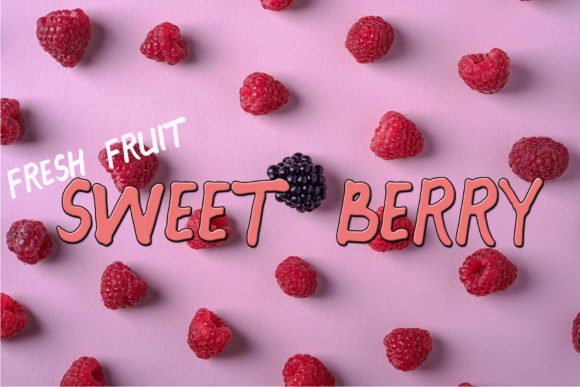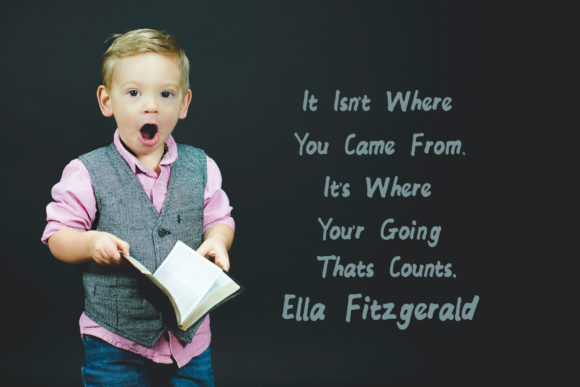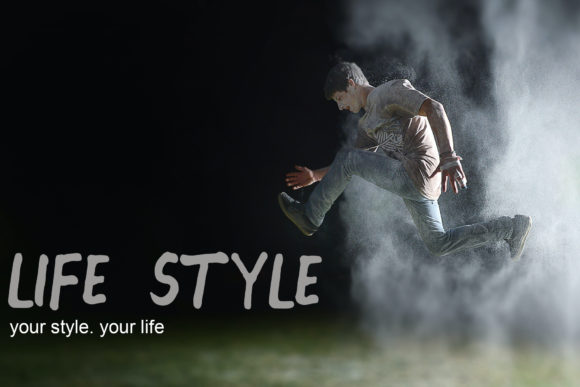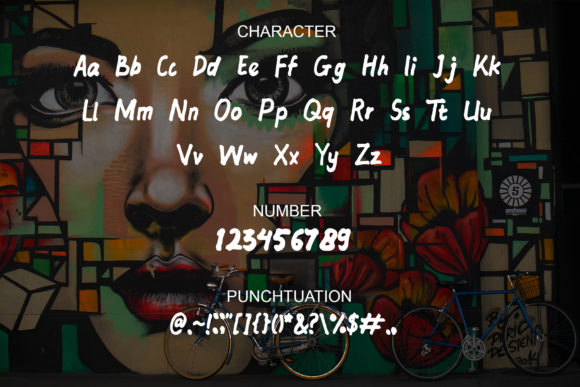
Introduction to Smith Eren Font
As designers, we’ve all been there – staring at a blank canvas, eager to bring our creative project to life. But sometimes, it takes just the right touch to make our designs truly shine. That’s where the Smith Eren Font comes in – a delightful display font that adds a playful, joyful twist to any design.
Whether you’re working on a marketing campaign, a social media graphic, or a wedding invitation, the Smith Eren Font is the perfect addition to elevate your design to the next level. With its high-quality, quirky charm, this font is sure to make your creative ideas stand out and leave a lasting impression on your audience.
Key Features of Smith Eren Font
- Unique, elegant font style with a transparent background for easy customization
- Perfect for use in graphic design, digital art, and other creative applications
Honest Review: Smith Eren Font
I recently stumbled upon the Smith Eren Font, and I must say it’s been a great addition to my design toolkit. As a designer, I’m always on the lookout for high-quality fonts that can elevate my creative projects.
One of the things that stood out to me about the Smith Eren Font is its high quality and versatility. It’s perfect for a variety of design projects, from logos to typography-based art.
Here are some of the features that work well for me:
- ✨ High-quality design: The font is well-designed and looks great on both light and dark backgrounds.
- ✨ Transparent background: This makes it easy to use the font on any background without worrying about it getting lost.
- ⚠️ Limited character set: The font only includes a limited set of characters, which may not be suitable for complex design projects.
- ⚠️ Not suitable for small text: The font can be difficult to read when used for small text, so it’s best to use it for larger typography.
Overall, I’m really impressed with the Smith Eren Font. While it may have some limitations, its high quality and versatility make it a great addition to any designer’s toolkit. I’d definitely recommend it for anyone looking for a free, high-quality font for their creative projects.
Tips for Getting the Most Out of Smith Eren Font
For the best results, use the Smith Eren Font with a transparent background and a high-quality image. This will allow the font to stand out and add a professional touch to your creative project.
Common Use Cases for Smith Eren Font
The Smith Eren Font is a versatile design resource that can be used in a variety of projects, including logos, business cards, and social media graphics. Its unique style and high-quality design make it a popular choice for creative professionals.
Alternatives to Smith Eren Font
The Alex Brush Font is a beautiful, high-quality script font ideal for creative projects that require a touch of elegance. It features a transparent background, making it perfect for overlaying on images or videos. This font is suitable for wedding invitations, greeting cards, and other special occasions. When compared to Smith Eren Font, Alex Brush Font has a more refined and sophisticated look, making it a better choice for projects that require a level of sophistication.
The Pacifico Font is a modern, high-quality sans-serif font perfect for a wide range of creative projects. It features a clean and minimalist design, making it ideal for use on transparent backgrounds. This font is suitable for business cards, brochures, and other marketing materials. Compared to Smith Eren Font, Pacifico Font has a more modern and sleek look, making it a better choice for projects that require a level of professionalism.
The Great Vibes Font is a beautiful, high-quality script font ideal for creative projects that require a touch of playfulness. It features a transparent background, making it perfect for overlaying on images or videos. This font is suitable for social media graphics, blog posts, and other online content. When compared to Smith Eren Font, Great Vibes Font has a more casual and relaxed look, making it a better choice for projects that require a level of informality.